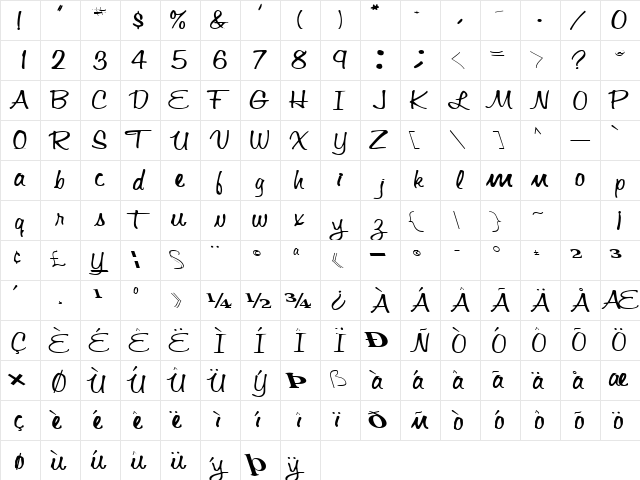
Law Regular
Design Context for Law Typeface
Law takes a measured approach to typography — its balanced proportions and neutral character make it a reliable workhorse for both digital and print work.